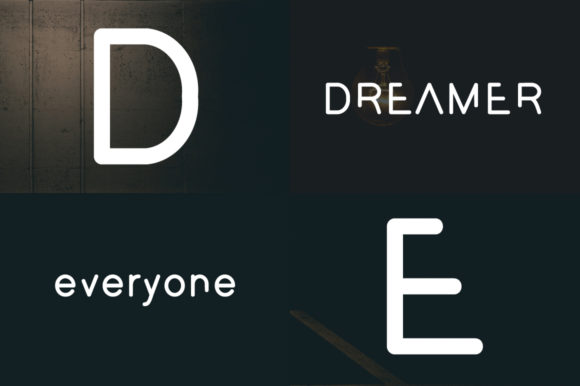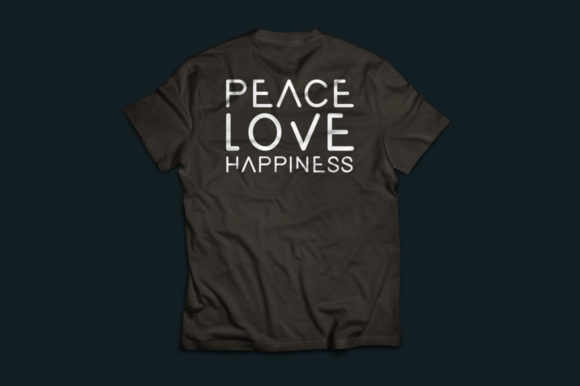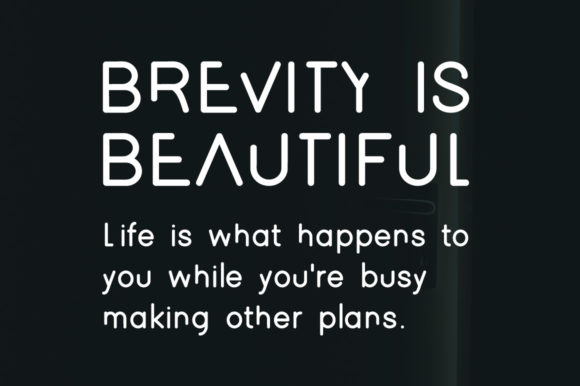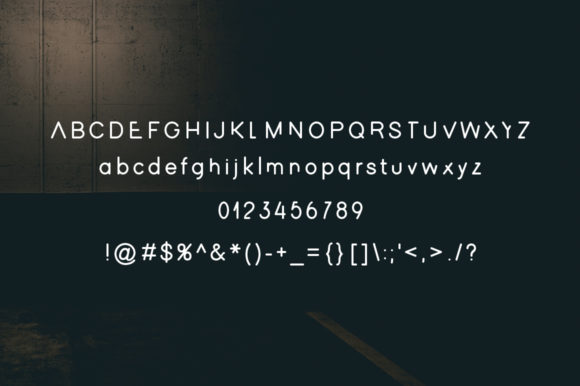
Introduction to Mantir Font
Have you ever stared at a blank canvas, searching for the perfect design element to bring your creative project to life? That’s exactly where I found myself the other day, and then it hit me – the perfect font to elevate my design to the next level. Introducing the Mantir Font, a brand new modern font that’s about to revolutionize the way we design.
As a designer, you understand the importance of having high-quality design resources at your fingertips. That’s why the Mantir Font is such a valuable addition to your toolkit. With its sleek, modern design, it’s perfectly suited for a wide range of applications, from stationery and logos to website headers and photo frames.
Key Features of Mantir Font
- Includes a range of weights and styles to suit various design needs
- Designed with high-resolution clarity, suitable for print and digital use
Honest Review: Mantir Font
- ✨ High-quality design: The Mantir Font has a sleek and modern design that works well for a variety of creative projects.
One of the things that stood out to me about the Mantir Font is its versatility. It’s perfect for use in digital design, print materials, or even web development.
Overall, I’m impressed with the Mantir Font. It’s a high-quality design resource that’s perfect for smaller creative projects. With a little creativity, it can be used to add a professional touch to any design.
Mantir Font
Tips for Getting the Most Out of Mantir Font
Use Mantir Font for headings, titles, and body text to add a touch of sophistication to your designs.
Experiment with different font sizes and styles to create a visually appealing design.
Combine Mantir Font with other design elements to create a cohesive and professional look.
Mantir Font is perfect for:
Business cards and brochures
Graphic design projects and digital art
Any creative project that requires a high-quality, elegant font.